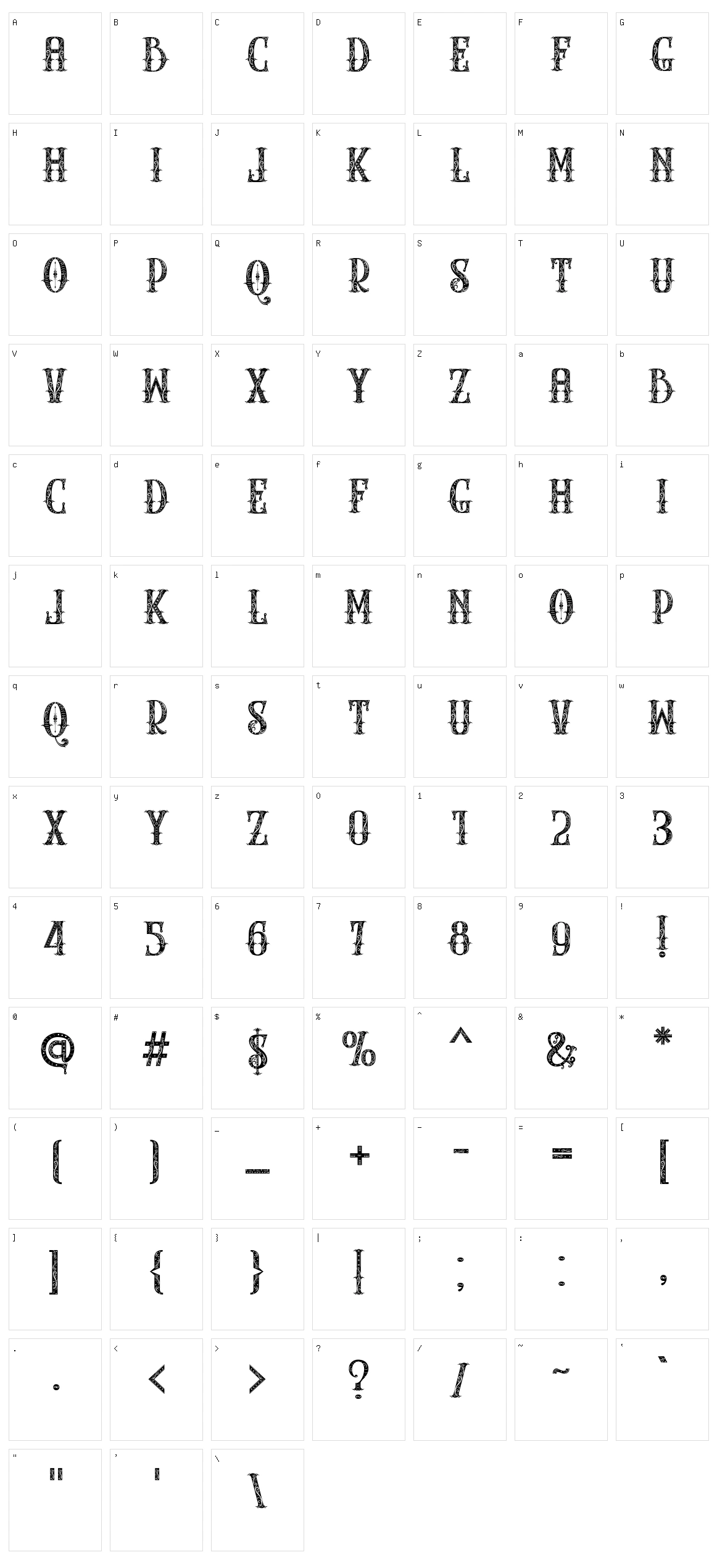
The free font The Parthenon is carefully designed by Ibram Syah, showcasing a thoughtful balance of creativity and usability and falls under the Retro font style. When you download the ZIP file, it contains only 216.92 KB of font files, making it lightweight and quick to download. Please review the license details below to understand permitted usage and distribution rights. If license information is not available, we recommend using this font for personal projects only or contacting the author directly for commercial usage permissions.